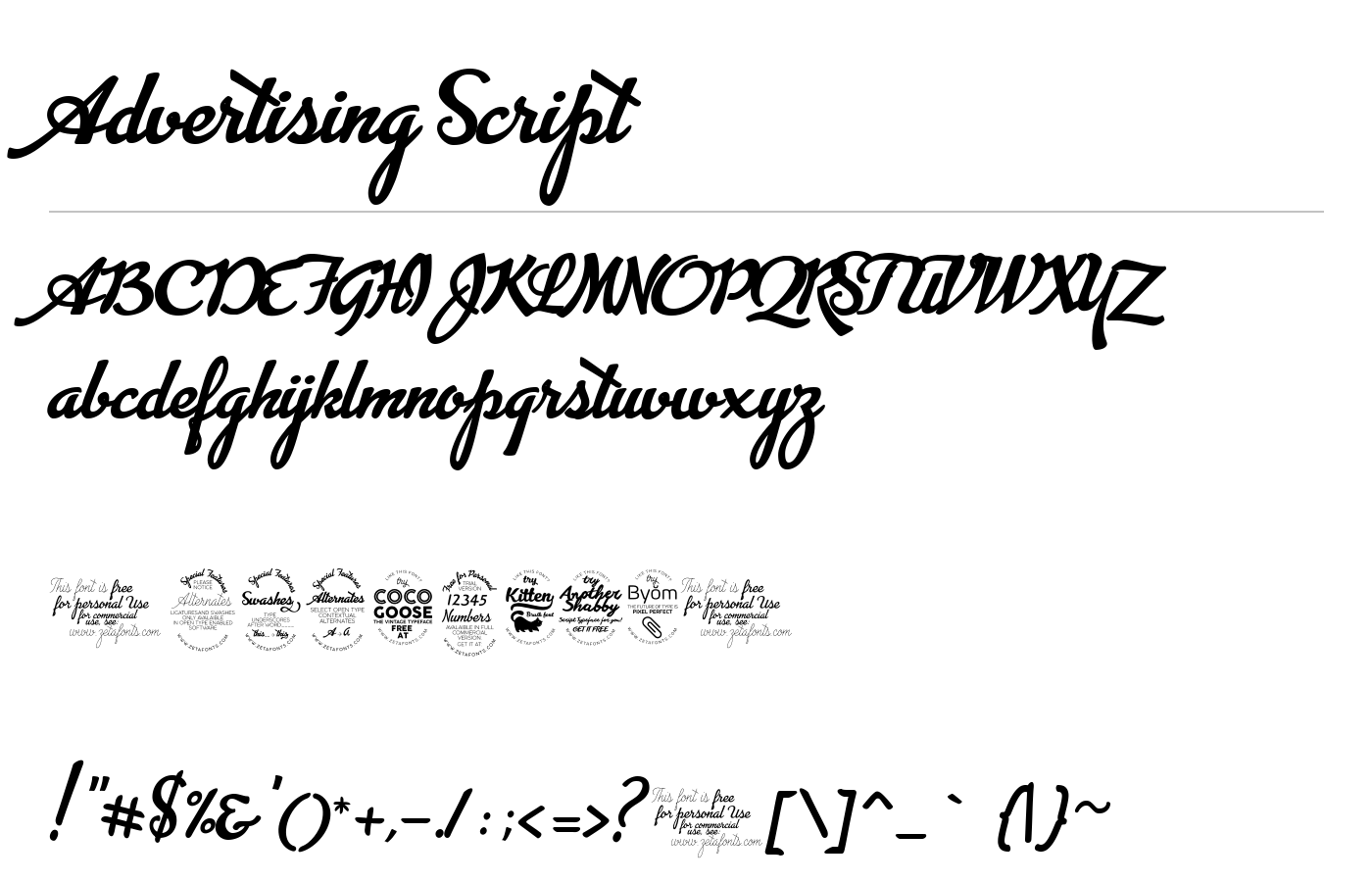
Advertising Script Monoline is an elegant and flowing script font characterized by its consistent stroke weight and smooth, connected letterforms. It exudes a vintage charm with playful yet refined curves, making it ideal for branding, logos, and packaging that seek a classic, handcrafted feel. This font works exceptionally well in headlines and display uses where a stylish, personal touch is desired.
Advertising Script Monoline Font
About Advertising Script Monoline Font
| Designer | Cosimo Lorenzo Pancini with Matteo Chiti, Luca Chiti and Andrea Tartarelli after George Russ |